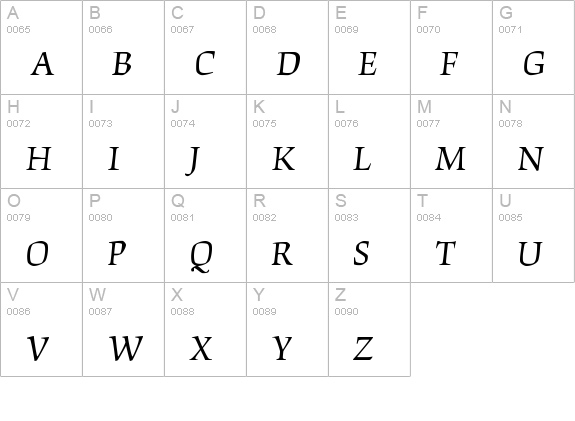
Origami Std Italic is a distinctive, italic variant in the Origami typeface family \xE2\x80\x94 well suited to design and typography projects.
Origami Std Italic font is a beautifully crafted typeface that exudes elegance and sophistication. Its sleek and modern design is perfect for various design projects, adding a touch of style and creativity. The italic style of Origami Std font brings a dynamic and contemporary feel to any text or layout. What makes Origami Std Italic font stand out is that it is available for free download at FontsMarket.com. This means that anyone can easily access and use this stunning font for personal or commercial projects without any cost. Whether you are designing a website, creating a branding identity, or working on a print project, Origami Std Italic font is a versatile choice that will elevate your design to the next level. With its clean lines, subtle curves, and unique italic flair, Origami Std Italic font is sure to make a lasting impression on any audience. Download this free font today and unleash your creativity with this modern and stylish typeface.